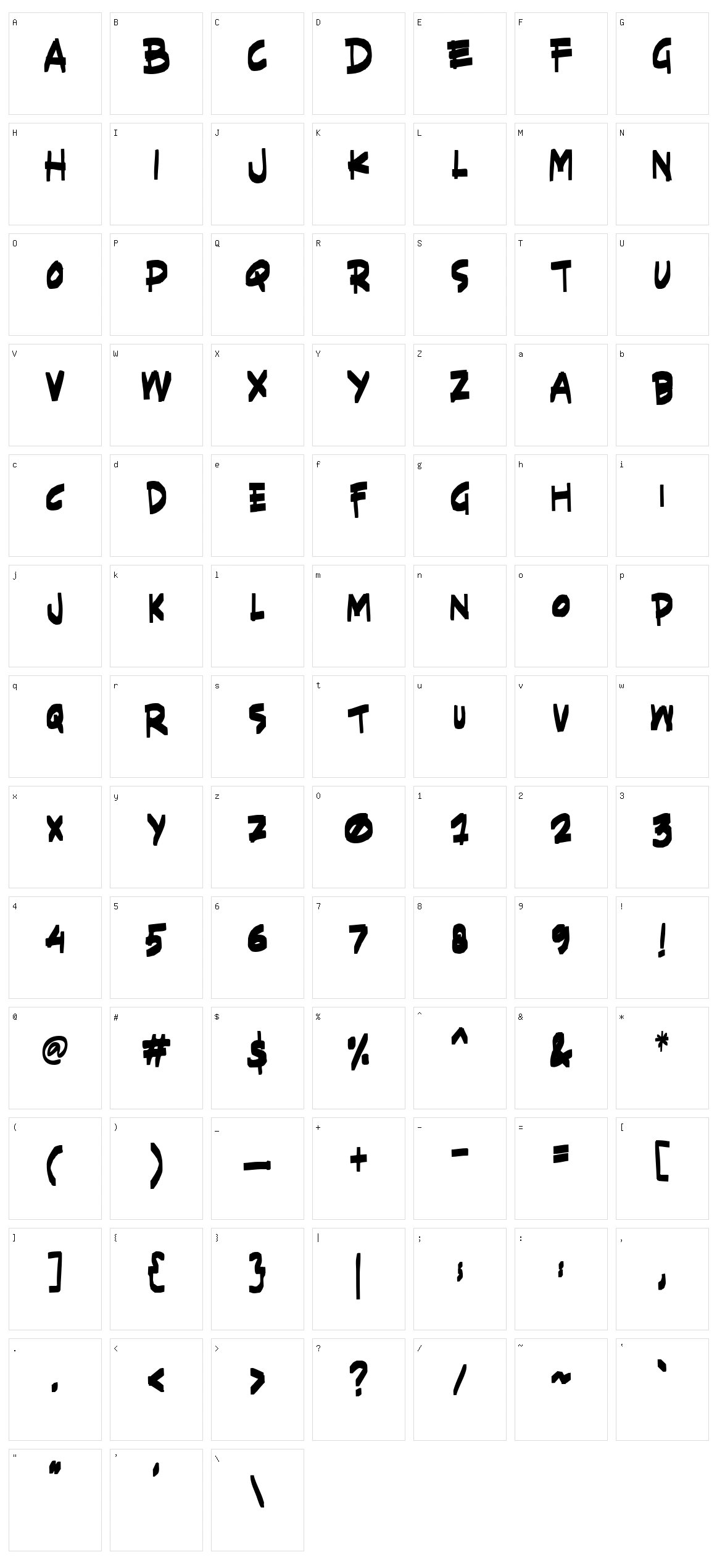
The free font Shred is carefully designed by Alexa, showcasing a thoughtful balance of creativity and usability and falls under the Script font style. When you download the ZIP file, it contains only 26.78 KB of font files, making it lightweight and quick to download. Please review the license details below to understand permitted usage and distribution rights. If license information is not available, we recommend using this font for personal projects only or contacting the author directly for commercial usage permissions.